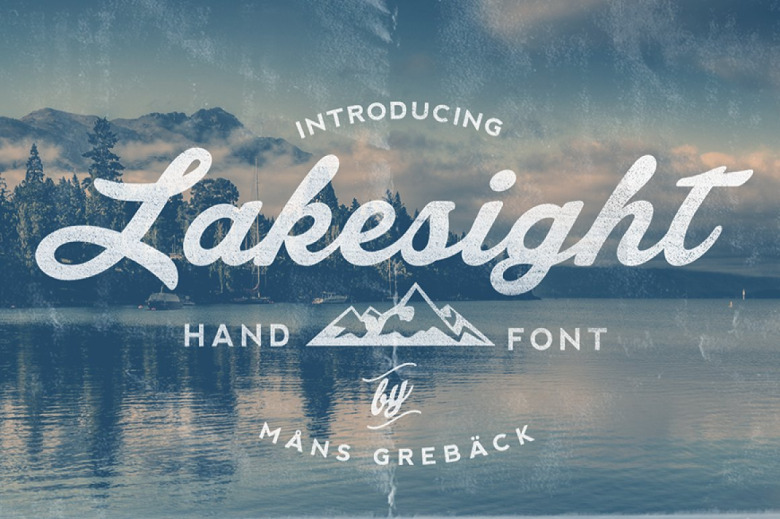
Lakesight Font
High quality script font with multilingual support and a large number of special characters. Designed by Måns Grebäck, this hand-crafted typeface works great in logotypes and for titles and slogans.
Lakesight Calligraphy Font